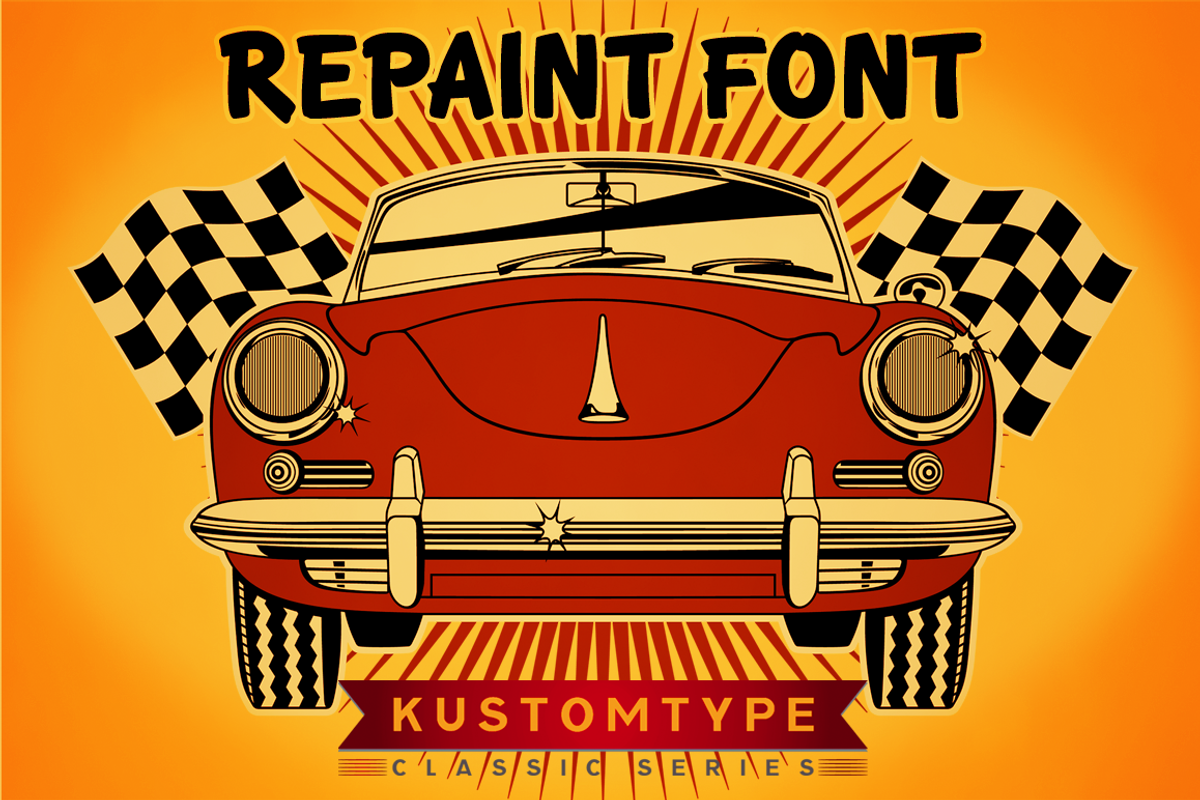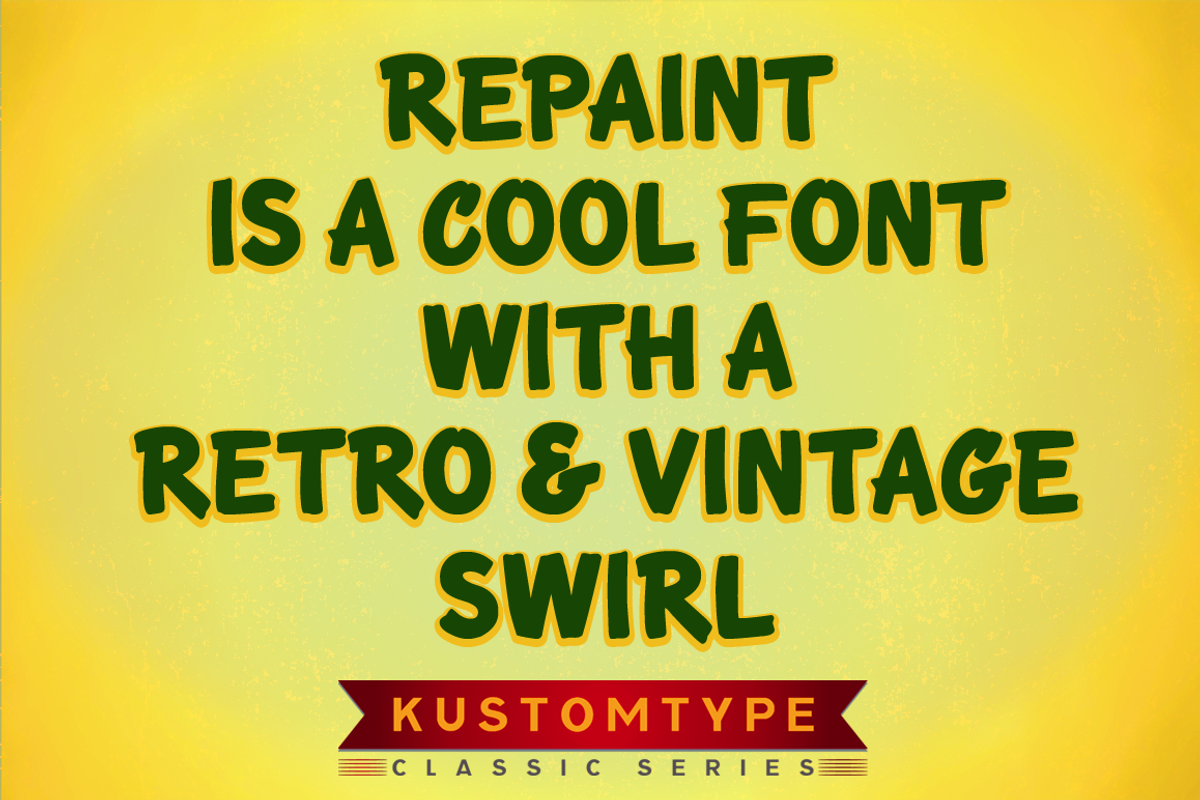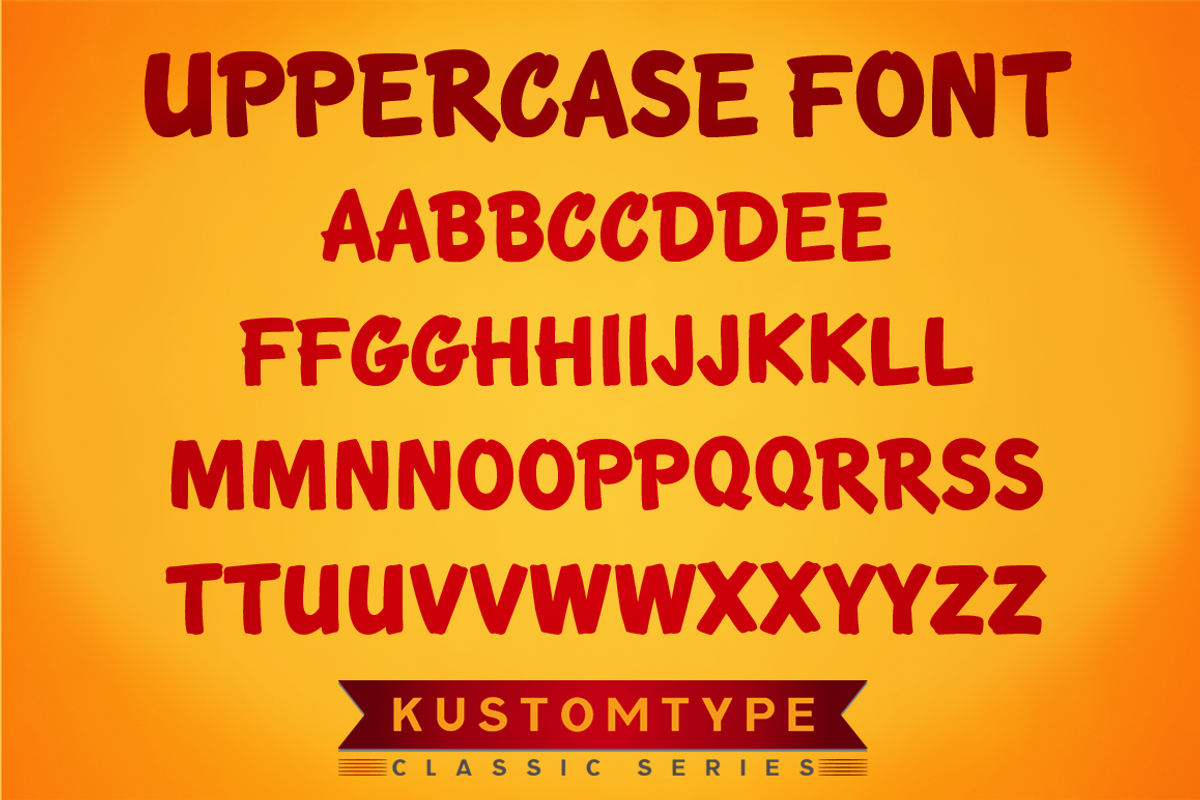
Intro Sale | Repaint & Repair Font by Kustomtype is a font selected for branding, posters, packaging, typography.
- Repaint comes only in the uppercase style that contain all upper characters, punctuation, numerals and mathematical operators, as well as al
Intro Sale | Repaint & Repair Font by Kustomtype fits naturally into Branding, posters, packaging, typography.